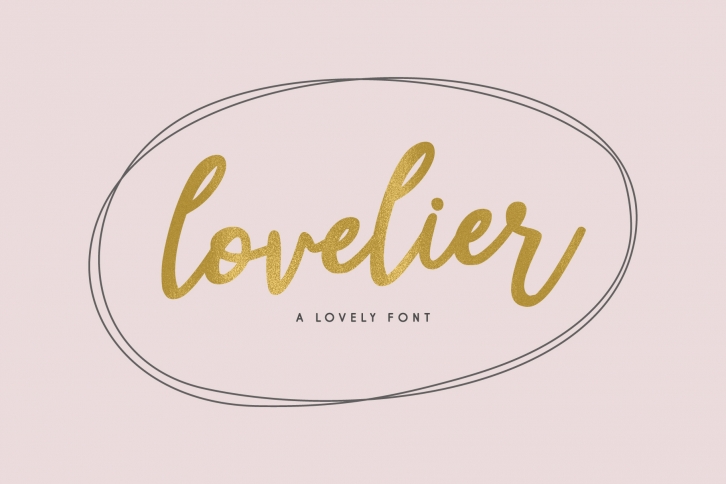
Lovelier is a beautiful font that was designed by pixelcolours. It's a great choice for designers and creatives who need such a font. It was released on September 12, 2018 and the file size is 6.85 MB. Lovelier may give a more youthful, expressive and casual look to your project. It is a very beautiful, refined, elegant, and high-quality font.